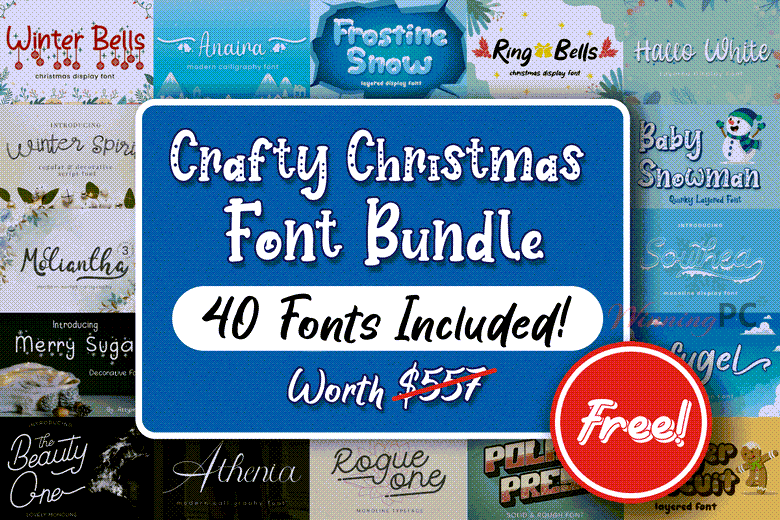
What is the Crafty Christmas Font Bundle?
This festive collection features 40 beautifully crafted, one-of-a-kind fonts, perfect for branding, invitations, social media designs, and so much more. Best of all, Crafty Christmas Font Bundle comes with a commercial license — absolutely free!